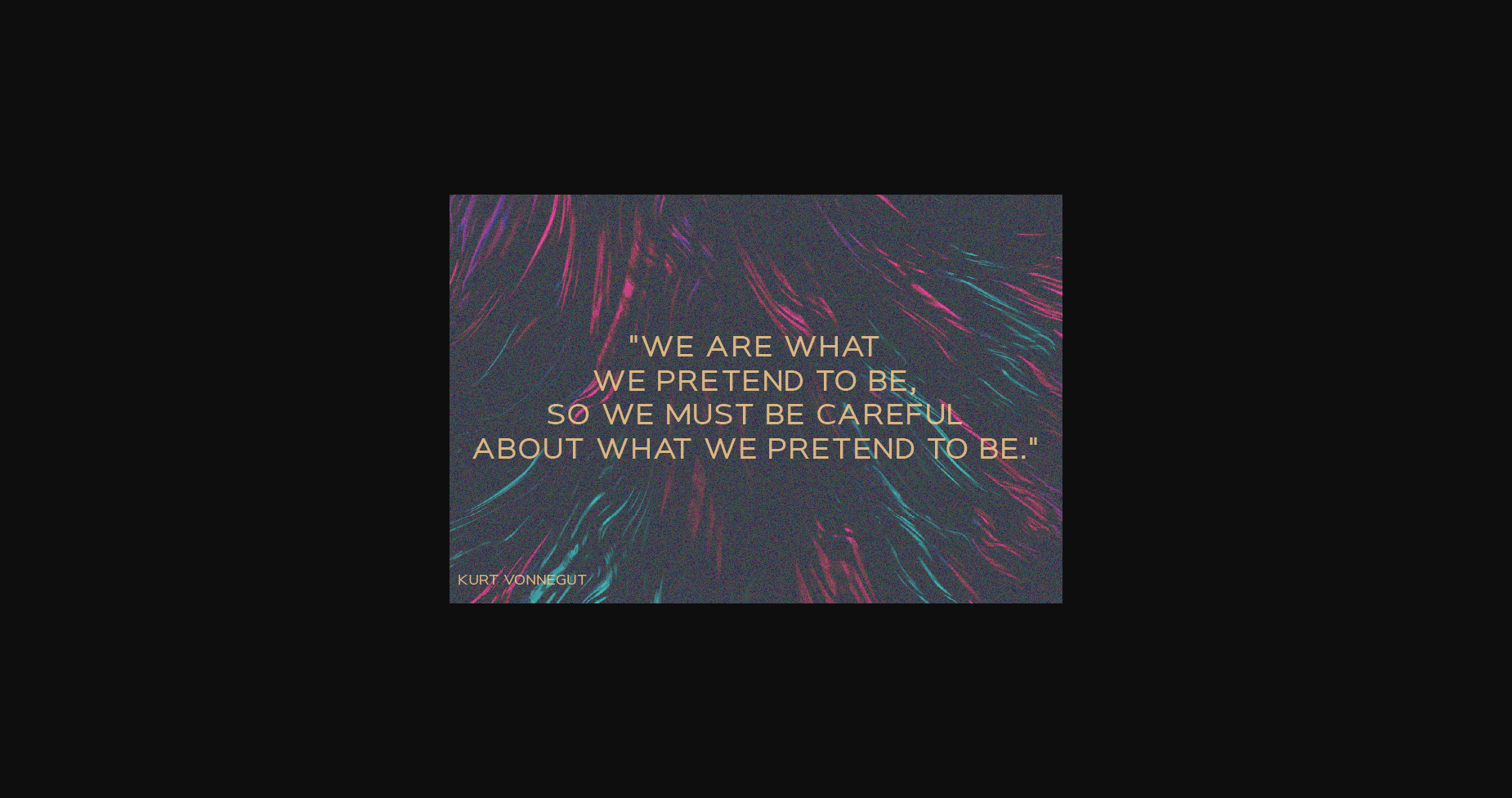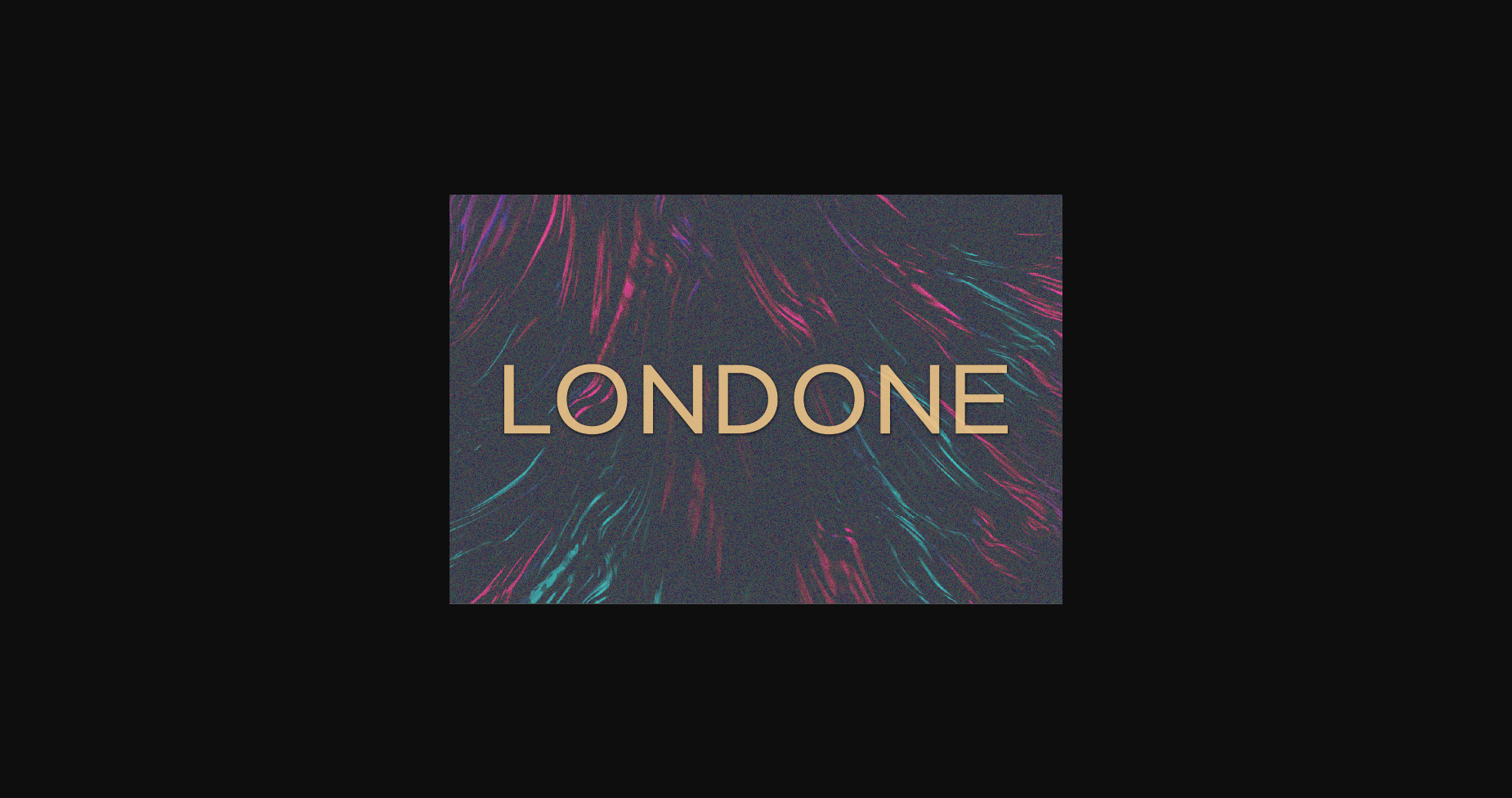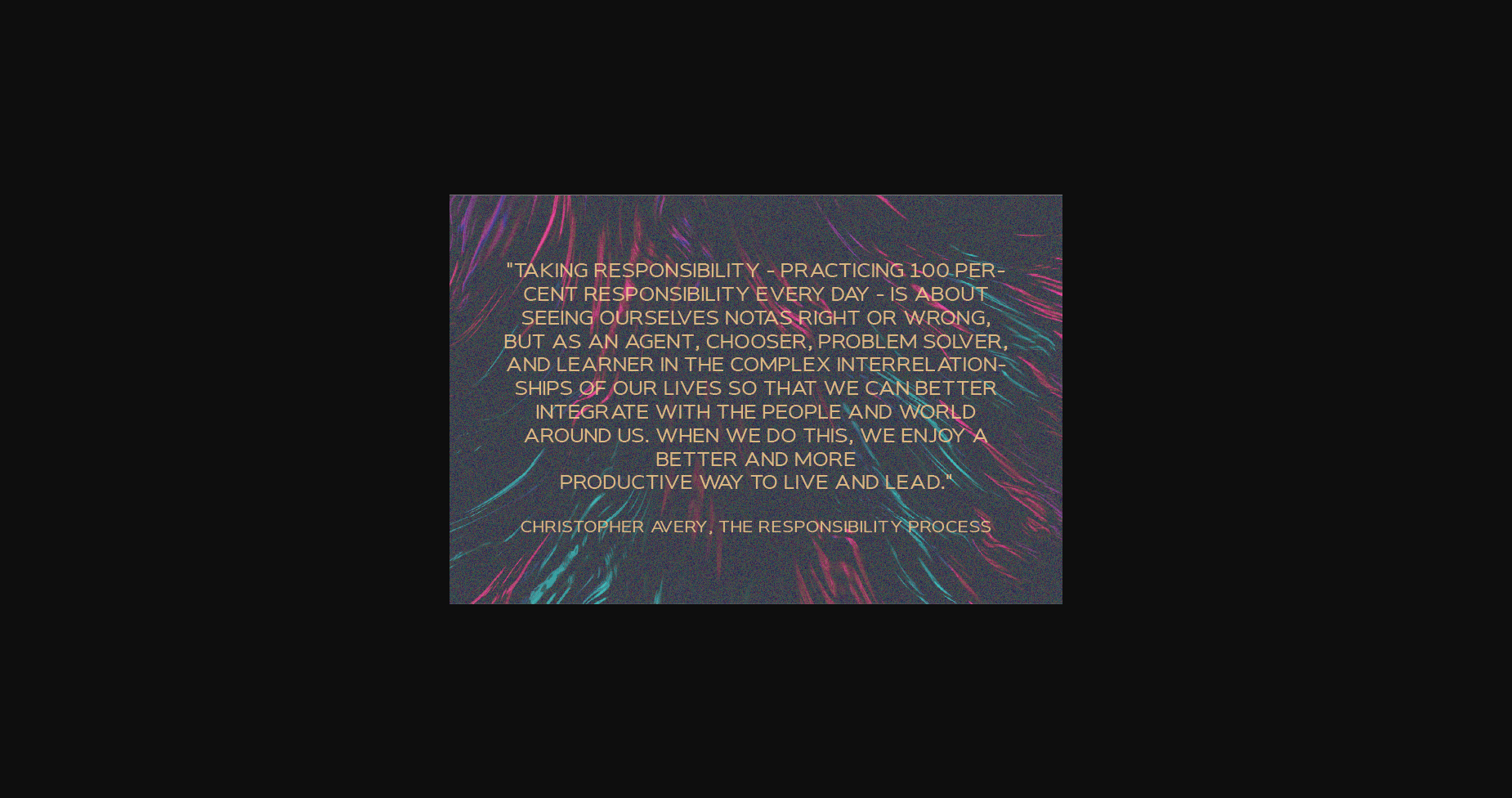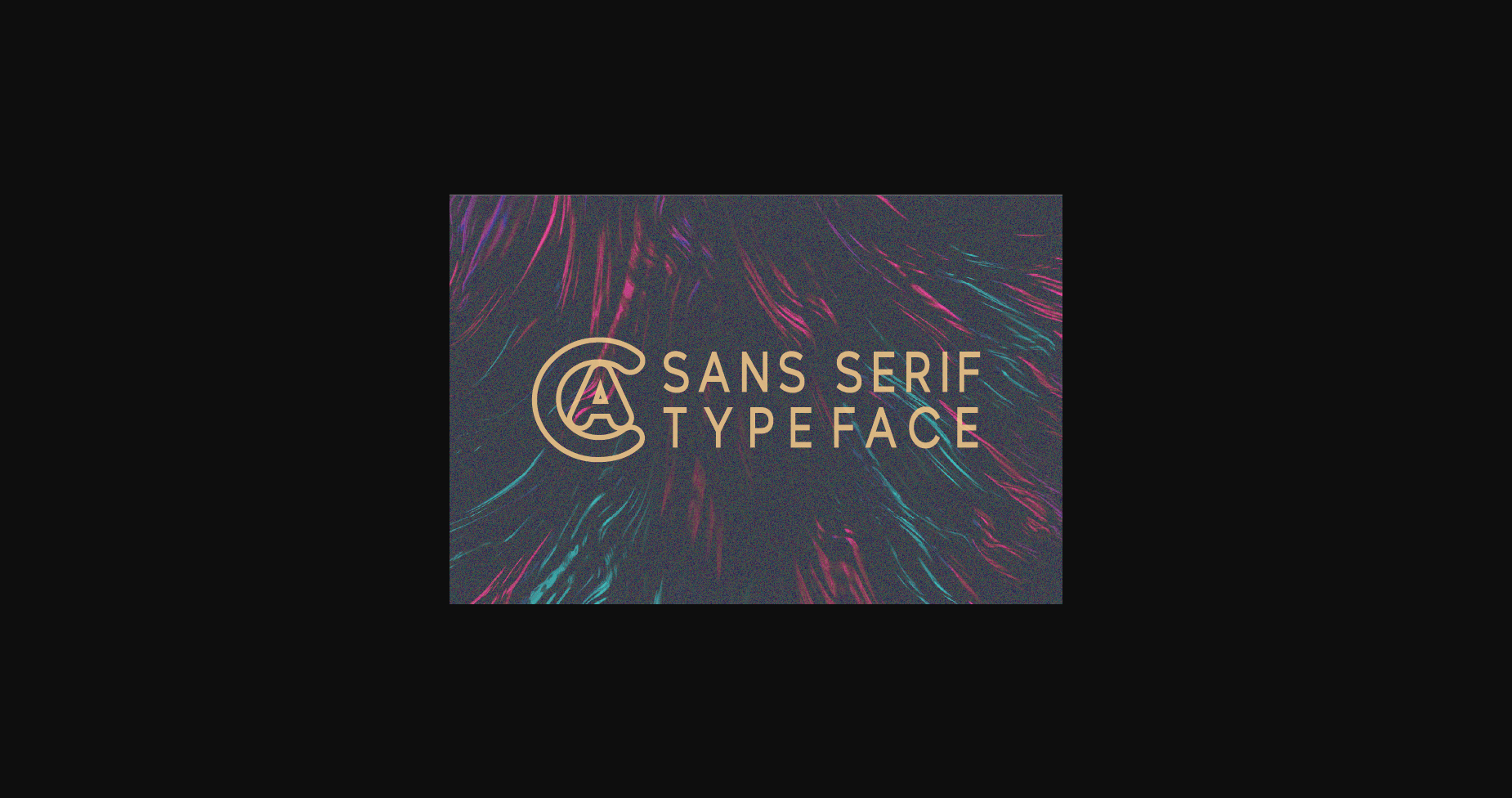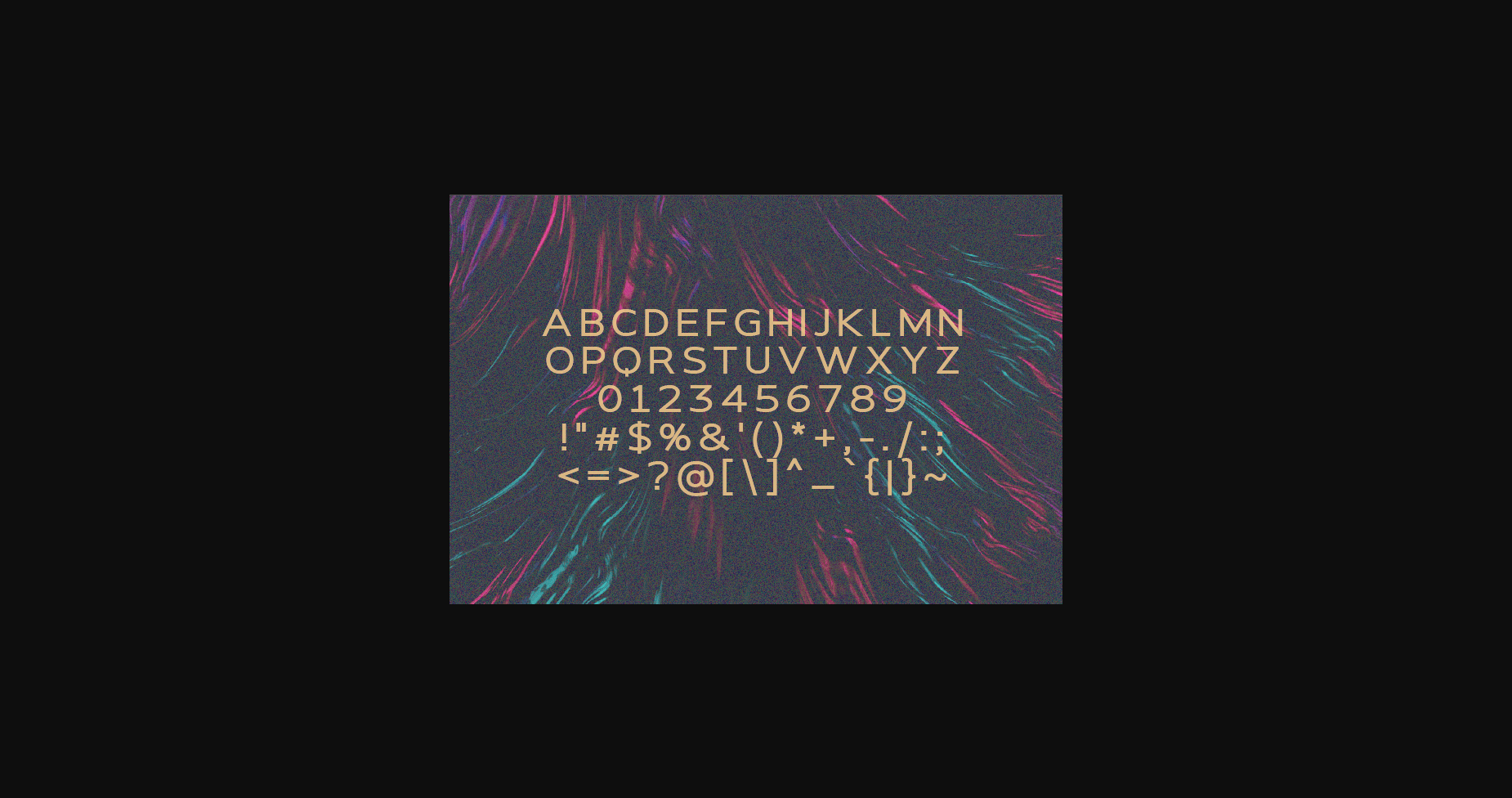
Sans Serif Fonts Londone Font 0 209 FacebookTwitterPinterestWhatsApp 1 of 7 ... Londone Font Poster 2... Londone Font Poster 3... Londone Font Poster 4... Londone Font Poster 5... Londone Font Poster 6... Londone Font Poster 7... About Londone Font Londone is a modern, classy sans serif typeface. Extremely versatile, this typeface is perfect for logos, weddings, invitations, quotes, advertisements, print, magazines, and more! DOWNLOAD NOW